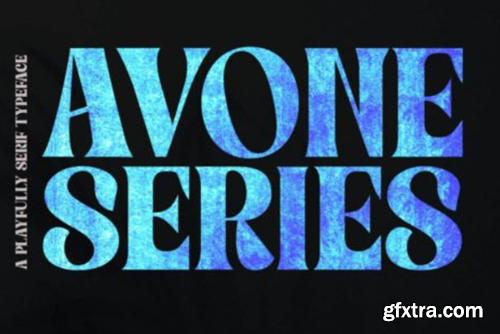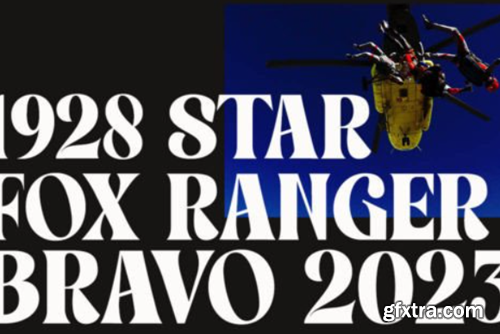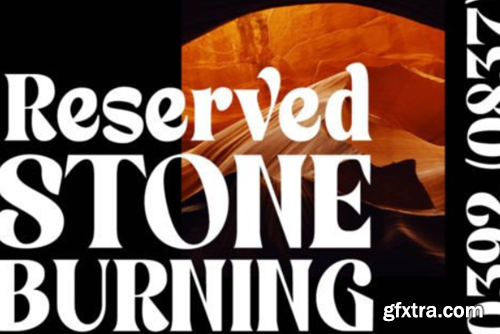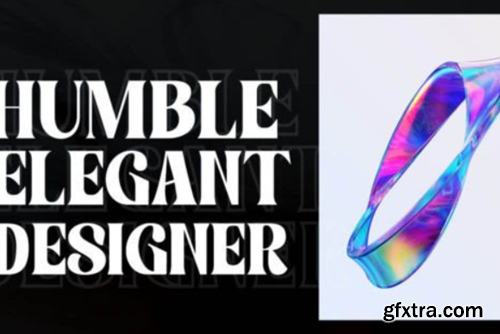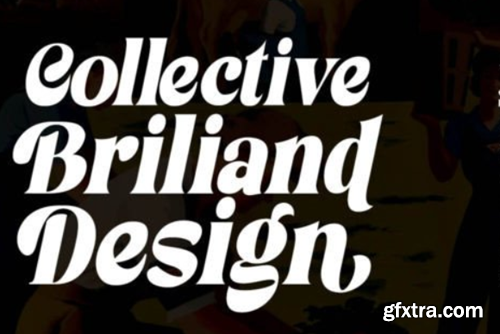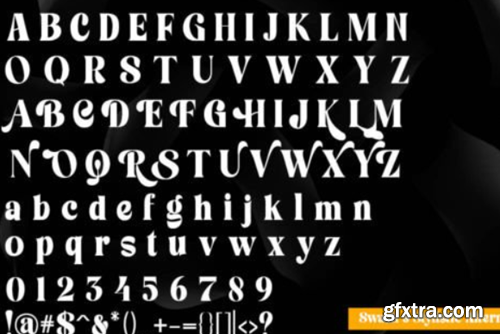
阿von系列字体
Avone Series Font
Avone Series & Italic is a vintage typeface, featuring a clean and letterpress style, regular and original with added ligatures and symbols.
Avone Series & Italic is perfect for all types of display purposes from branding, emblems, advertisements, t-shirts, etc., you name it.